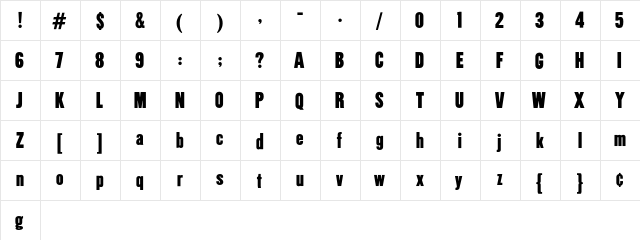
BarbieOM BoldSans
Design Context for BarbieOM Typeface
BarbieOM offers clean, dependable letterforms without strong stylistic allegiance, making it a practical choice for designers who need flexibility. Its bold stroke weight gives it real presence on the page.
Pro Tip: Pair BarbieOM with a font of contrasting weight or personality to build a more expressive typographic hierarchy.